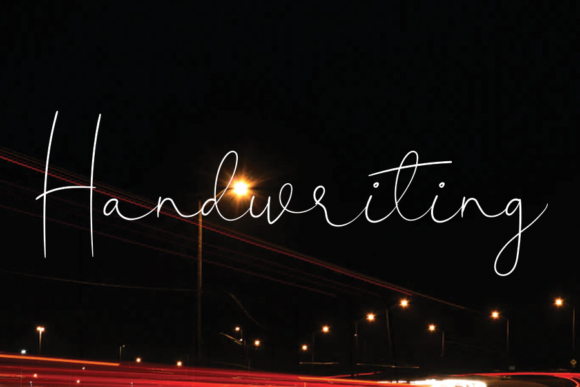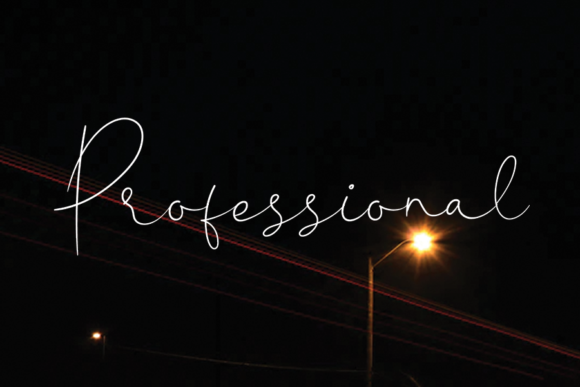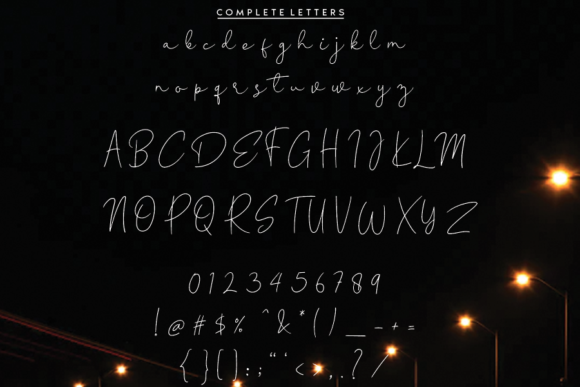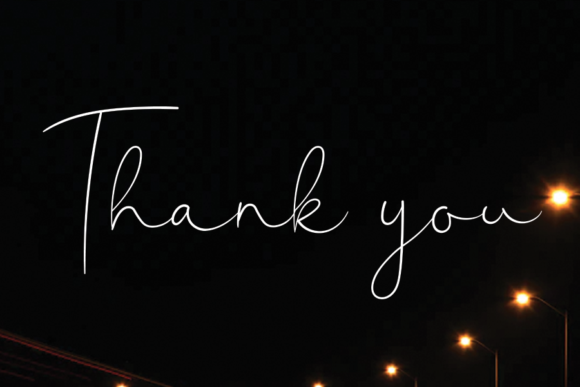
Signatulla Font
About Signatulla Font
Signatulla is a flowing and distinct handwritten font. Get inspired by its incredibly versatile and timeless style and use it to create gorgeous wedding invitations, beautiful stationary art, eye-catching social media posts, and much more!